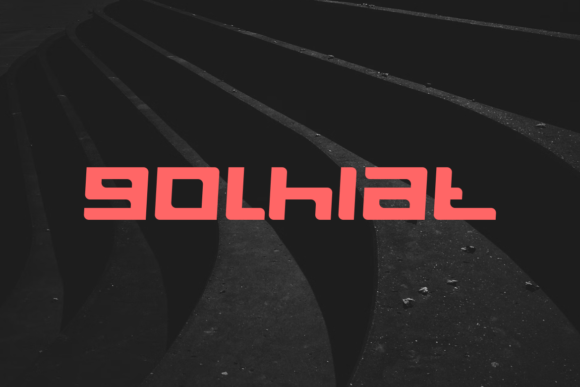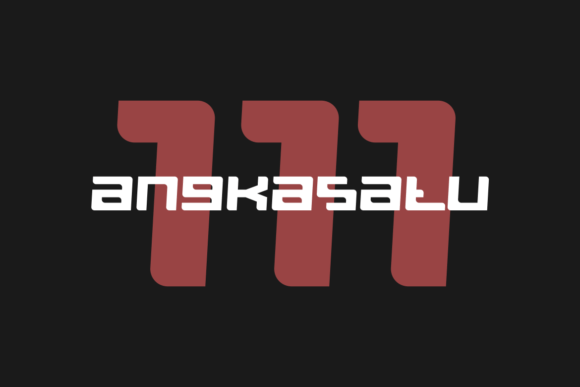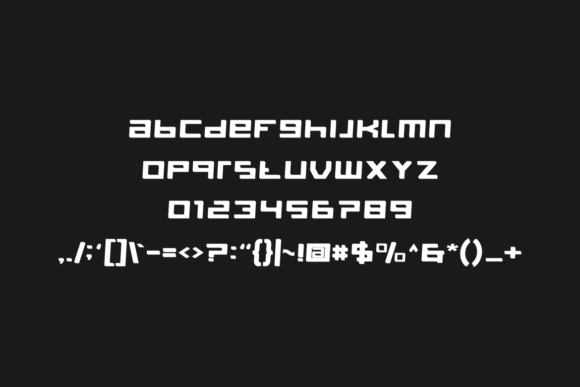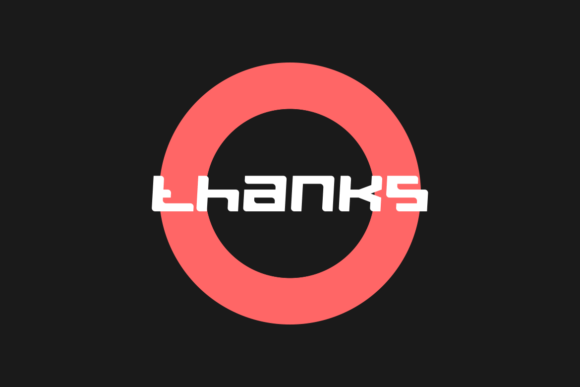
Discover the Bold Beauty of Astugel Font
Have you ever been working on a project, and that perfect font just slips right out of your mind? Maybe you’re designing a greeting card for a friend’s birthday, or creating a presentation for a client, and nothing seems quite right? That’s exactly when I fell in love with the Astugel Font – a modern and bold display font that adds a touch of sophistication to any design.
Astugel Font is perfect for designers looking to elevate their projects with a unique and eye-catching font. Whether you’re working on crafts, digital designs, or presentations, this font has the potential to become your go-to choice for any occasion. Its versatility and bold style make it an invaluable addition to any designer’s toolkit.
Astugel Font Key Features
- Unique Characteristics: Astugel Font features a unique blend of modern and vintage elements, with a distinctive flair that sets it apart from other fonts in its category.
- Character Set: The font includes a comprehensive character set, including uppercase and lowercase letters, numbers, punctuation marks, and a range of special characters.
- Font Style: Astugel Font is available in a single font style, but it can be easily customized using various font effects and styling options to suit different design needs.
Astugel Font Review
I recently had the chance to work with the Astugel Font, and I’m sharing my honest thoughts on it.
- Unique aesthetic: Astugel Font has a distinctive, modern look that’s perfect for creative projects.
- Clear legibility: The font is highly legible, making it easy to read even in smaller sizes.
- Wide language support: Astugel Font supports a wide range of languages, making it a great choice for global projects.
- Weight limitations: The font only comes in a few weights, which may limit its use in certain design contexts.
- No italic or bold-italic options: While the font’s standard weights are clear and readable, the lack of italic or bold-italic options may make it less versatile.
- Not ideal for body text: While Astugel Font is great for headlines and titles, it may not be the best choice for large blocks of body text.
Overall, I think Astugel Font is a solid choice for designers looking for a modern, unique font. While it has some limitations, its clear legibility and wide language support make it a great addition to any design project.
The Astugel font is ideal for:
1. Branding and logo design.
2. Creative projects, such as posters and flyers.
3. Digital marketing materials, such as social media graphics and email templates.
4. Editorial design, such as magazines and newspapers.
Alternatives to Astugel Font for Designers
Open Sans is a modern sans-serif font that is highly legible and versatile. It’s suitable for use in digital interfaces, such as websites and mobile apps. Open Sans is a great alternative to Astugel Font for designers who need a clean and simple font for body text.
Comparison to Astugel Font: While both fonts have a modern feel, Open Sans is more minimalist and straightforward, whereas Astugel Font has a more playful and rounded edge.
Lato is a sans-serif font that is highly customizable and adaptable to different screen resolutions. It’s a great choice for designers who need a font that works well in both digital and print media. Lato is similar to Astugel Font in its modern and clean aesthetic, but has a more geometric feel.
Comparison to Astugel Font: While both fonts share a similar modern look, Lato has a more structured and geometric feel, whereas Astugel Font has a more rounded and playful edge.